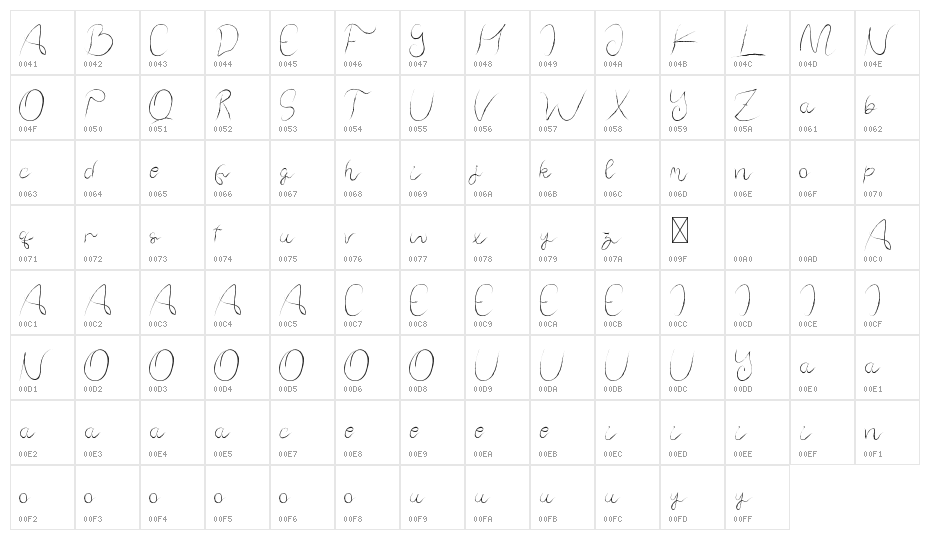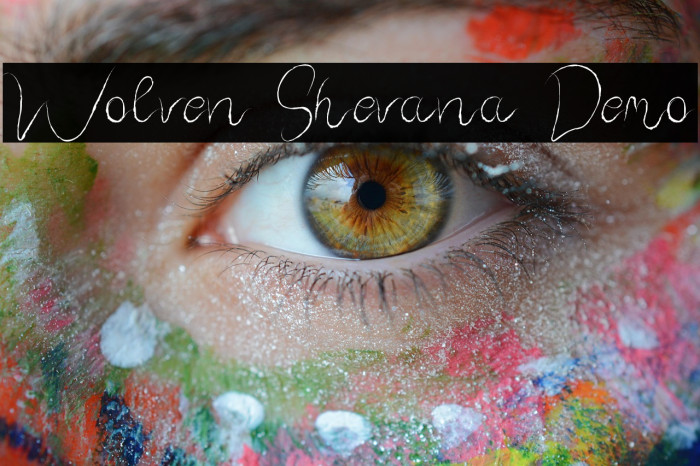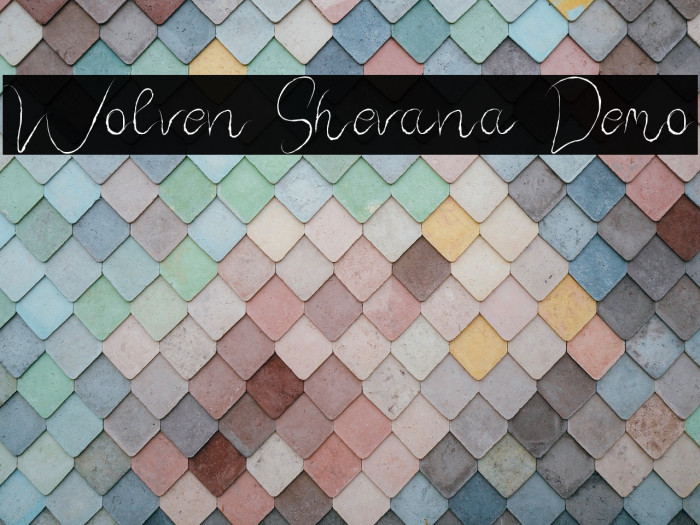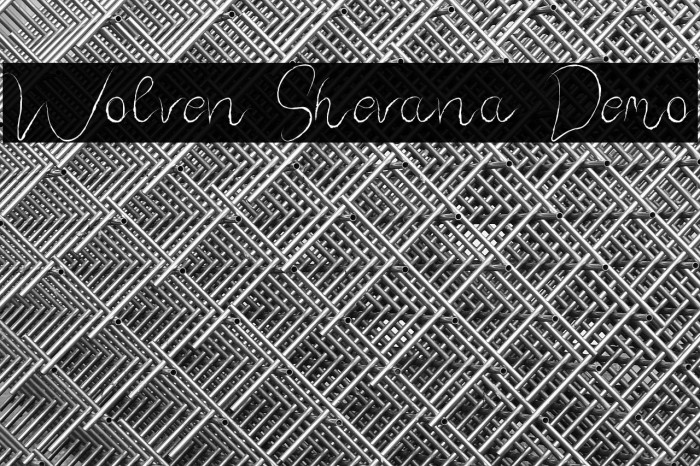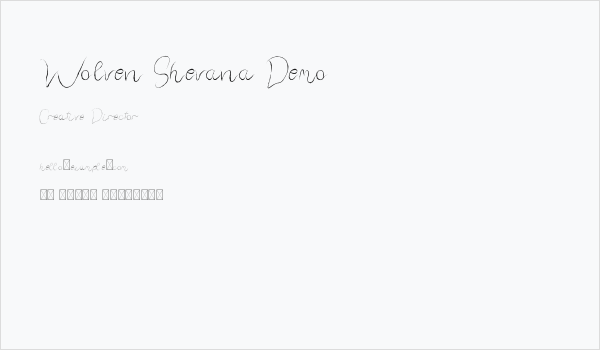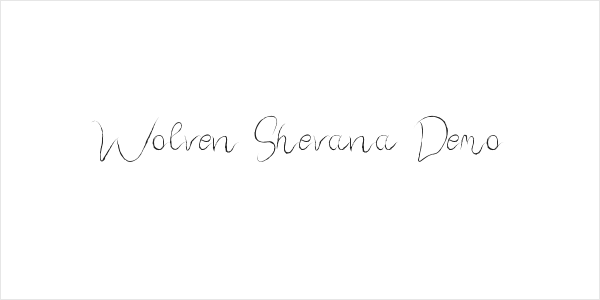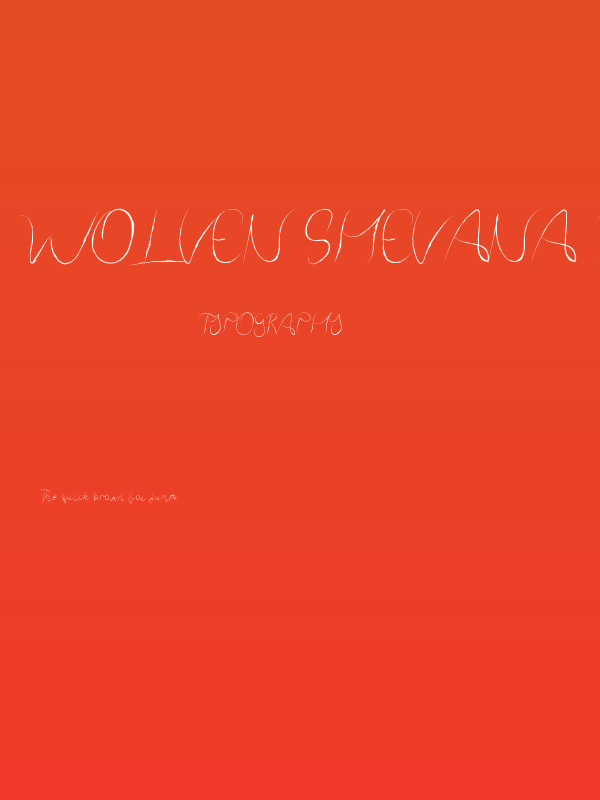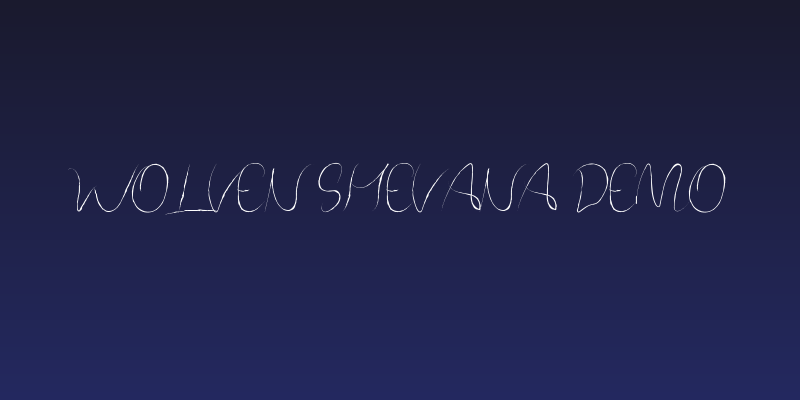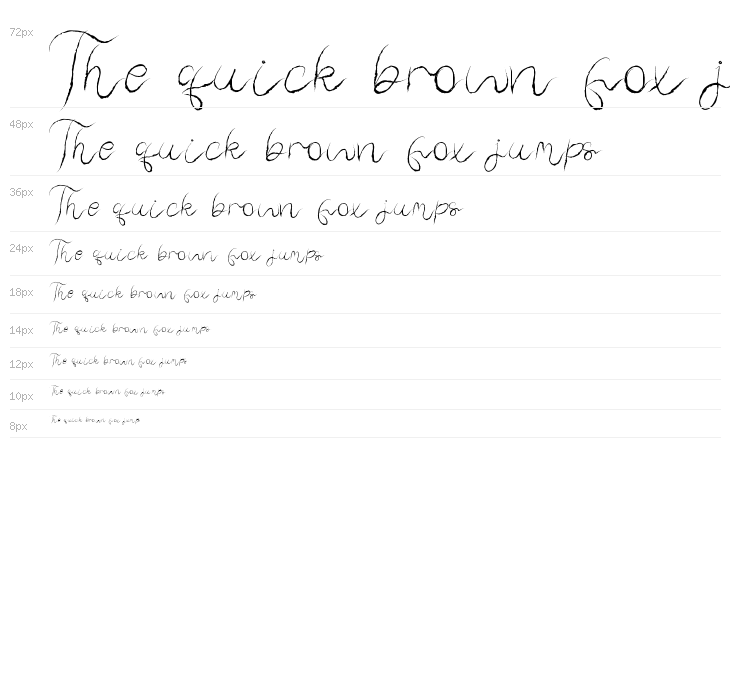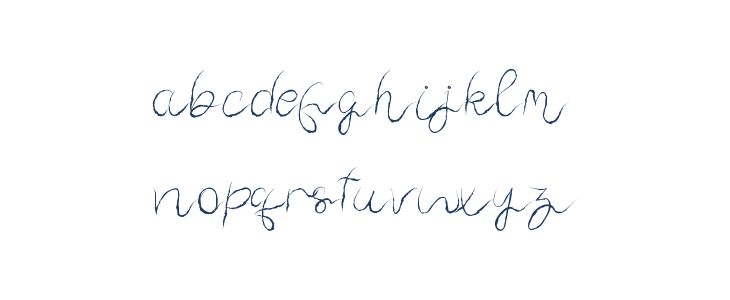
Wolven Shevana Demo Font
Wolven Shevana Demo Description
This font features an elegant, flowing script style that mimics the fluidity of handwriting. The characters are connected with smooth, sweeping curves, giving it a sophisticated and artistic appearance. The strokes vary in thickness, adding a dynamic and lively feel to the text. The uppercase letters are bold and prominent, while the lowercase letters maintain a consistent flow, enhancing readability. This font is ideal for projects that require a personal touch, such as invitations, greeting cards, and branding materials. Its unique style makes it stand out, offering a blend of modernity and classic elegance.
| Overall Style | Elegant, Artistic |
| Use Case | Headlines, Artistic projects, Branding |
| Proposed Projects | Ideal for invitations, greeting cards, branding, and artistic projects. |